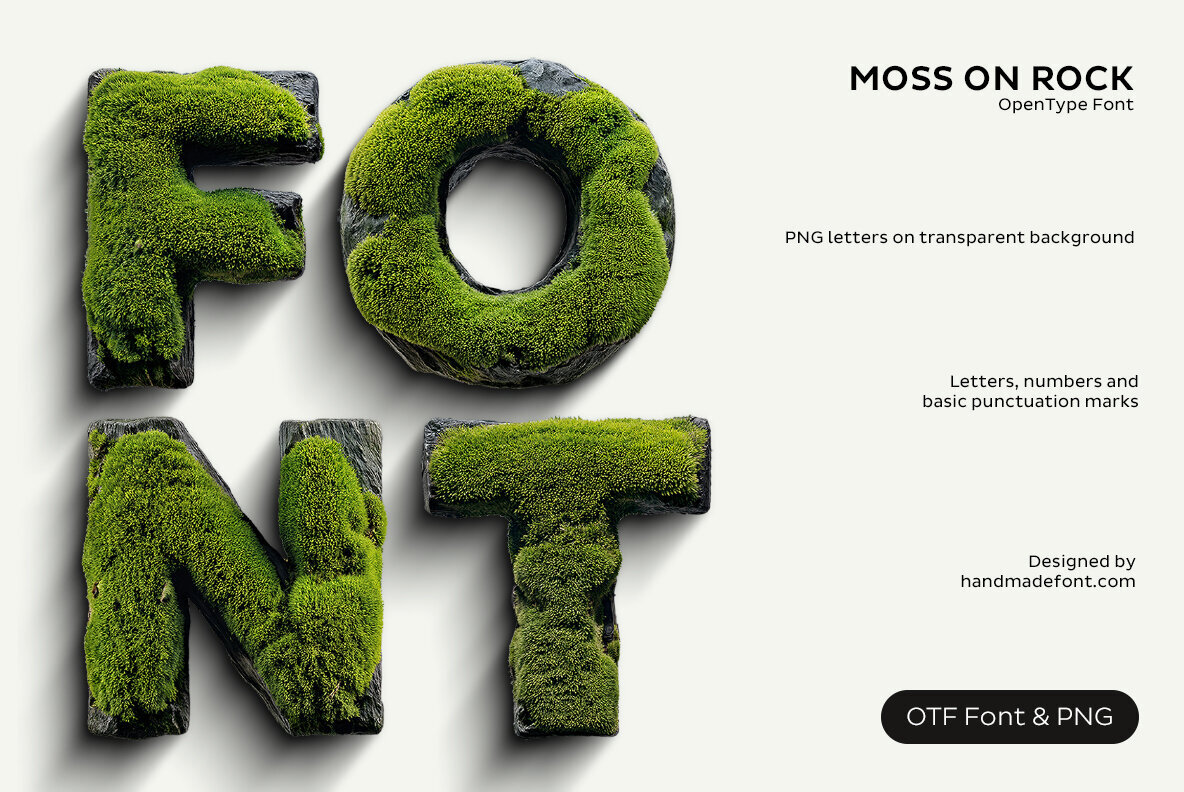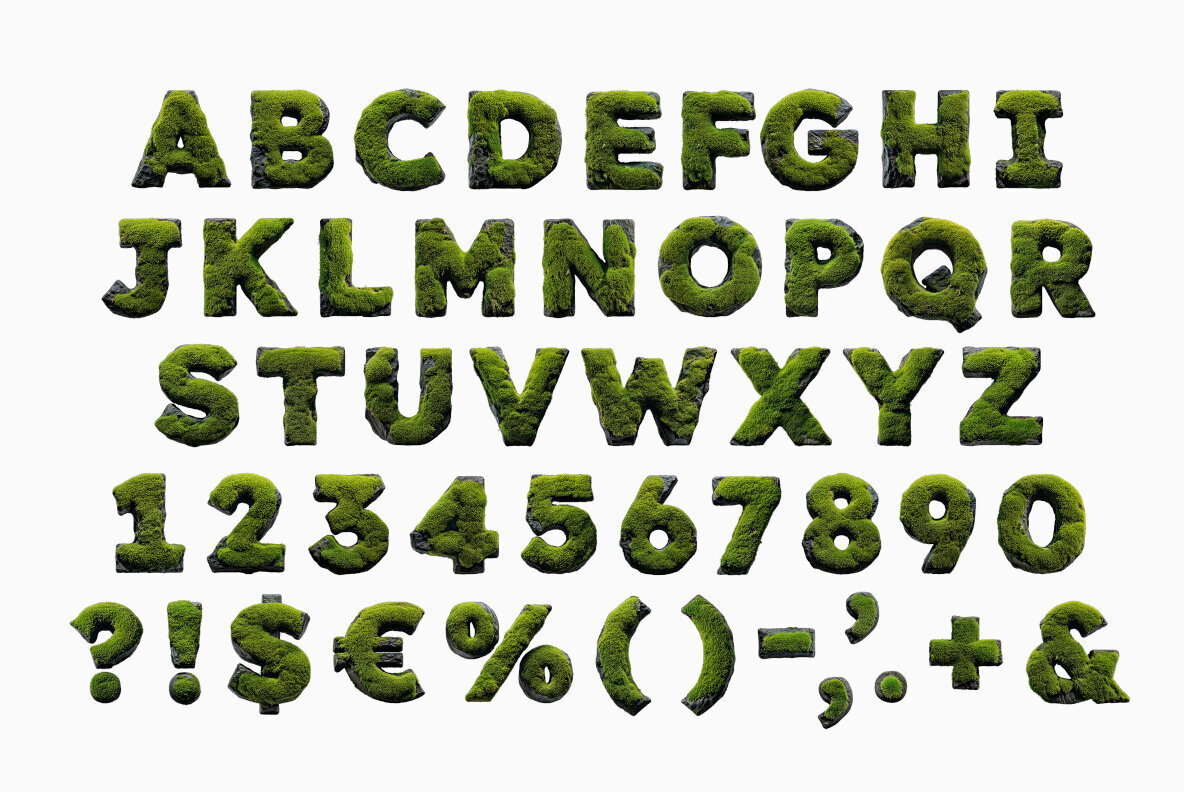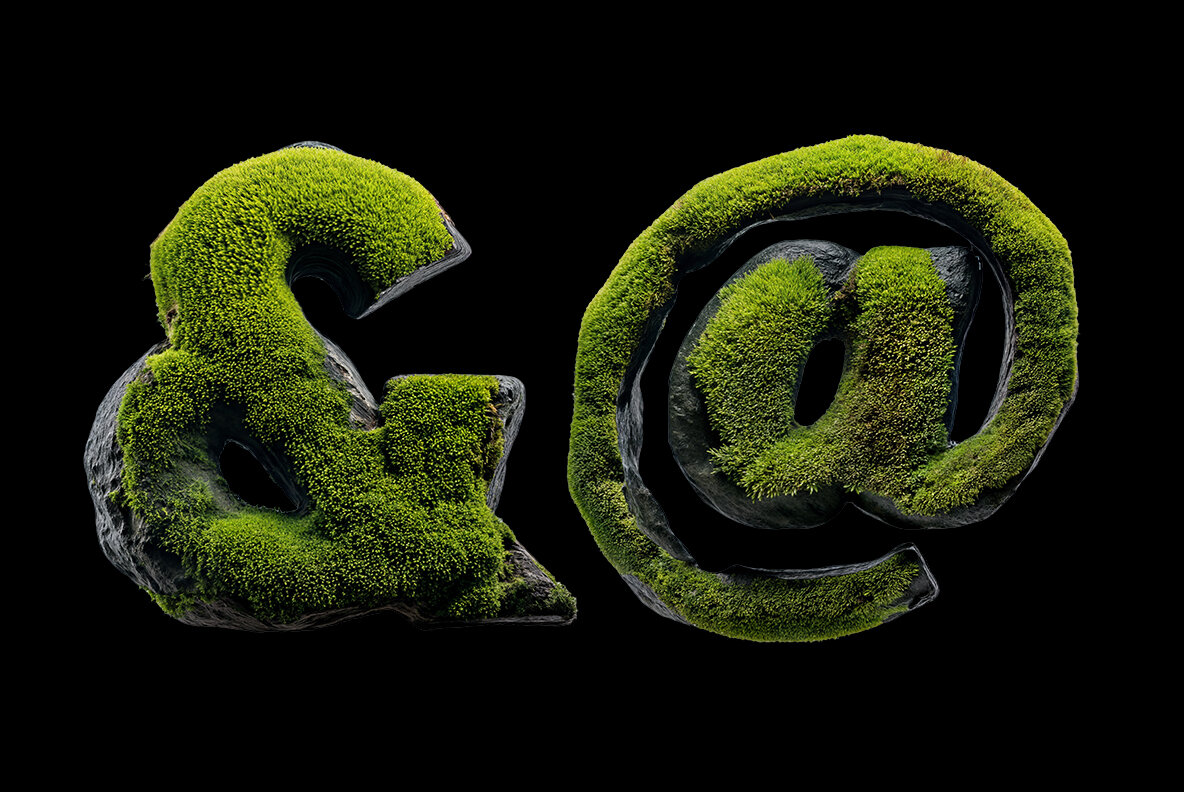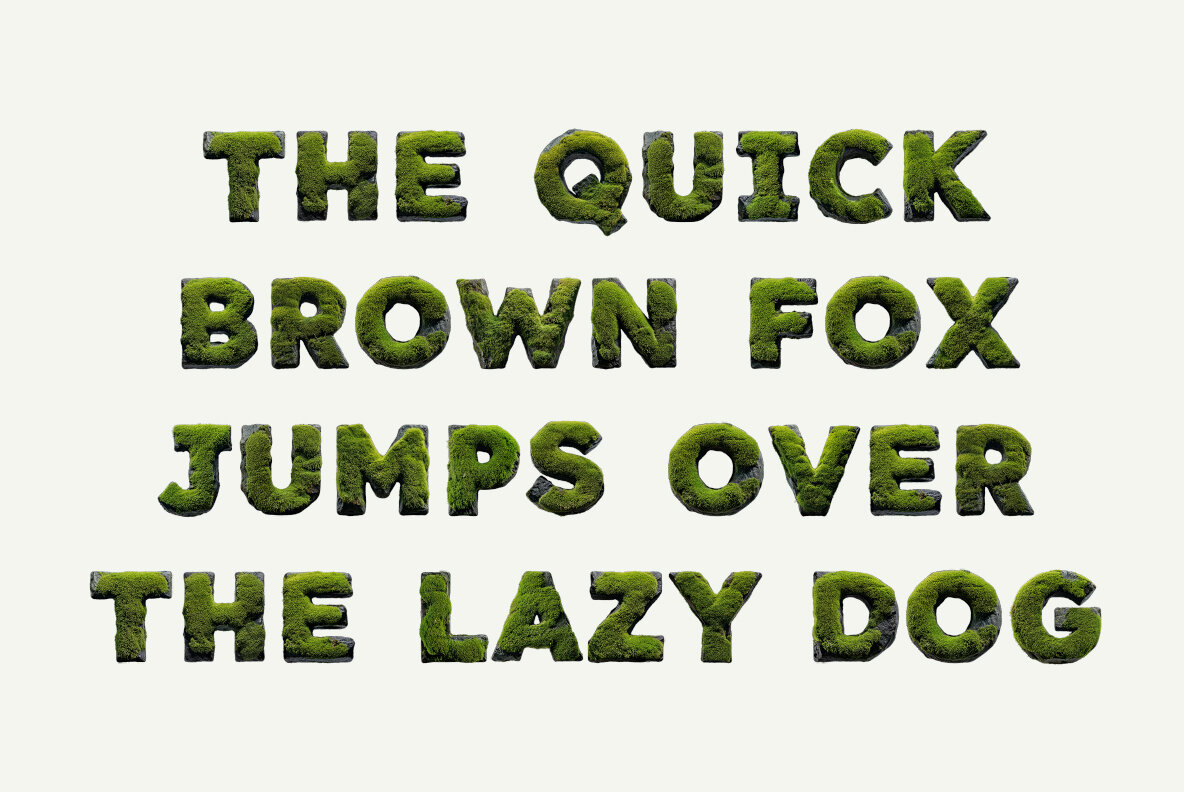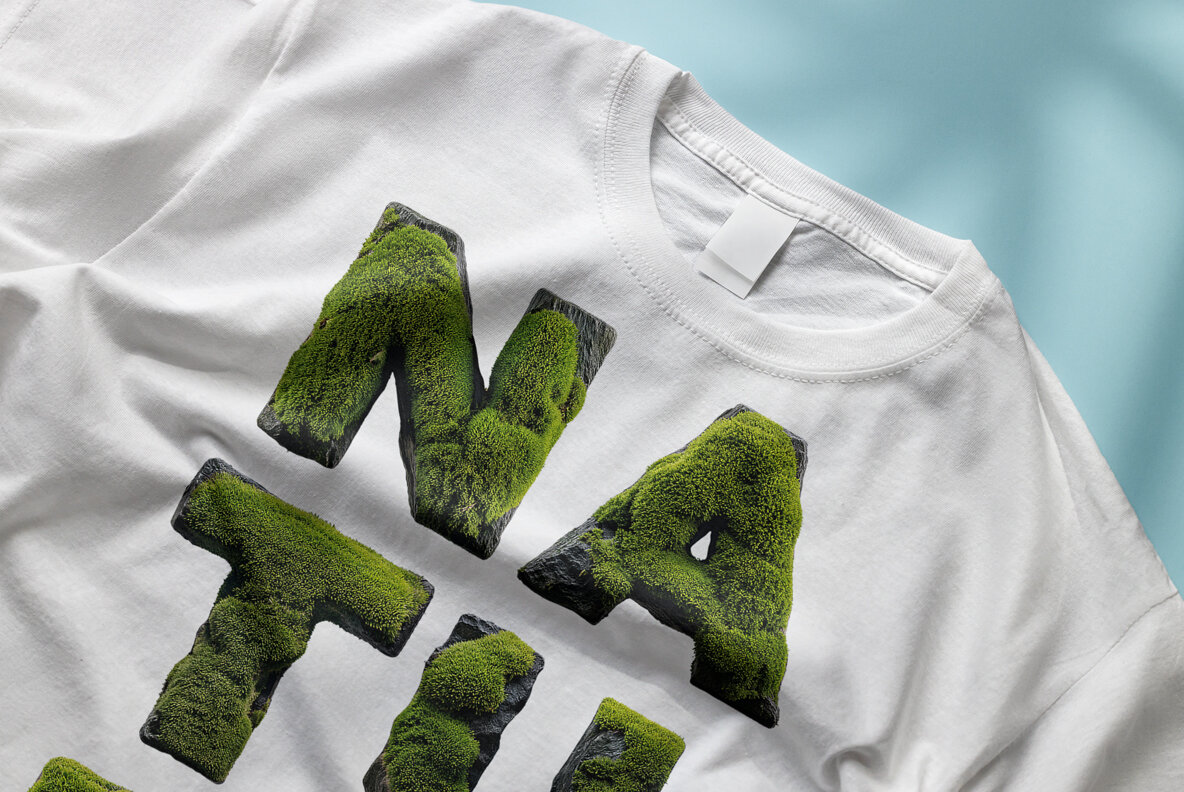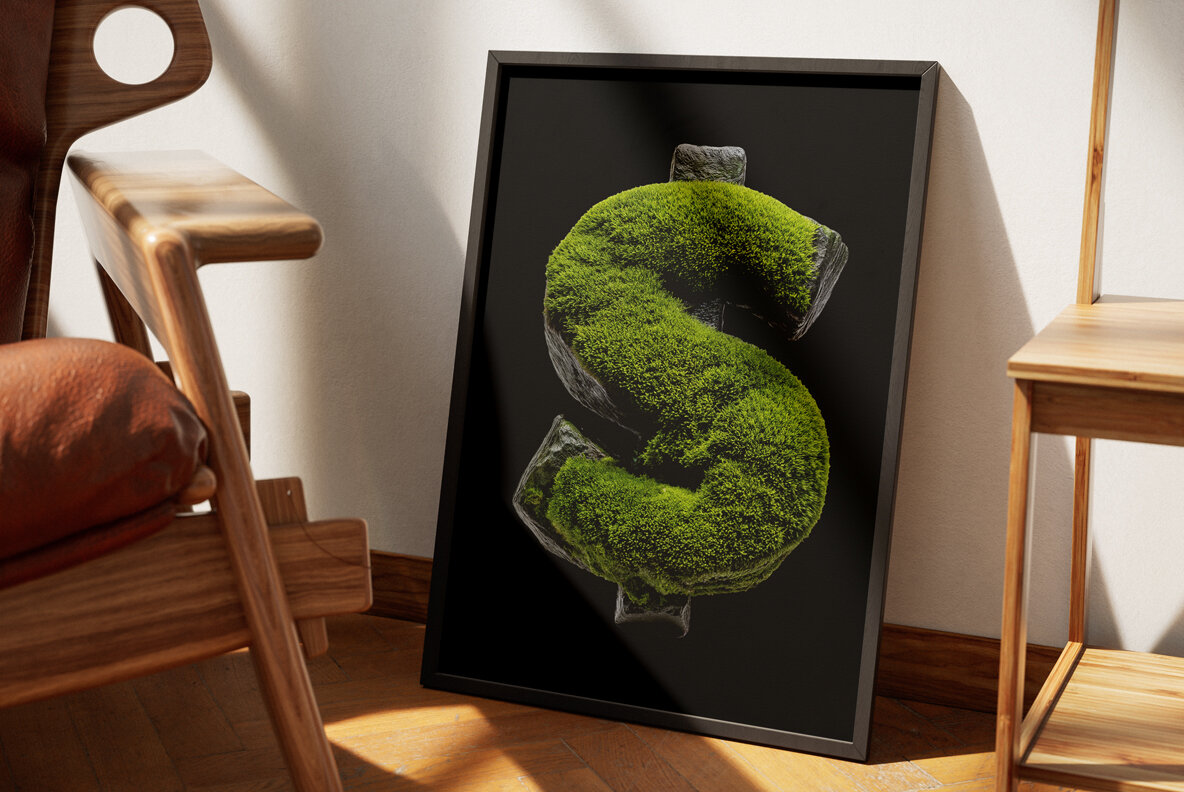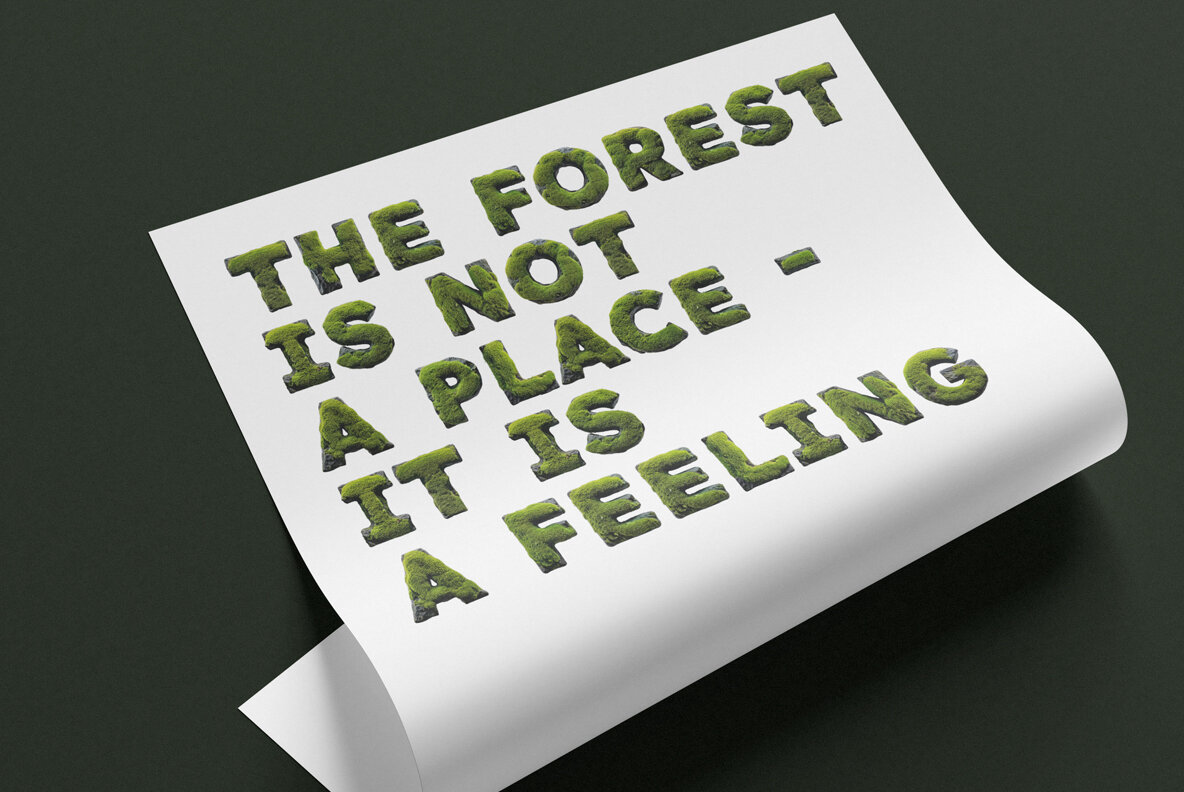
The Moss on Rock Font offers a unique blend of nature's raw strength and vibrant softness. Perfectly suited for eco-conscious projects or any design that craves a natural, earthy aesthetic, this typeface brings the resilience of stone and the life of moss into your creative endeavors. Ideal for headlines, logos, and artistic displays, it conveys texture and timelessness. This font is a high-definition OpenType file, featuring uppercase letters, numerals, and basic punctuation. Designed to integrate seamlessly with modern design software, it takes advantage of the OpenType-SVG format adopted widely across design platforms like Photoshop, Illustrator, and more. For added flexibility, the font includes individual PNG files of each character on a transparent background, at a high resolution of 4000x4000px. This package includes 131 files, allowing easy integration into any graphics project, adding a natural, resilient touch to your designs.Moss on Rock SVG: Nature-Inspired Typeface